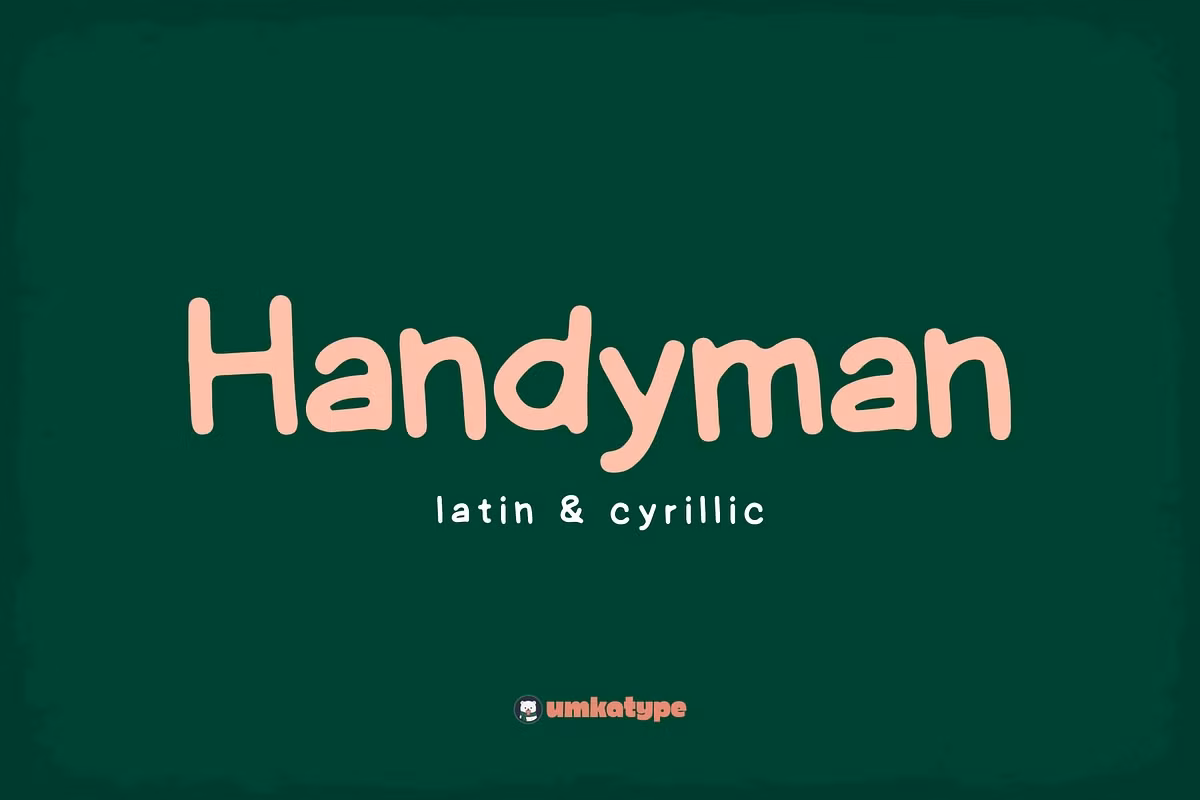
Handyman Handwritten Display Font Free Download
Handyman Handwritten Display Font Free Download is a fun and quirky handwritten typeface with a unique, casual vibe. Featuring rough, organic strokes and a personal, handcrafted feel, this font is perfect for creative projects such as logos, branding, social media graphics, posters, and more.
The display style of Handyman gives it a bold, eye-catching look, making it ideal for designs that need to stand out. Its playful and expressive design adds personality and warmth to your typography, making it suitable for everything from DIY projects to quirky, casual brands.